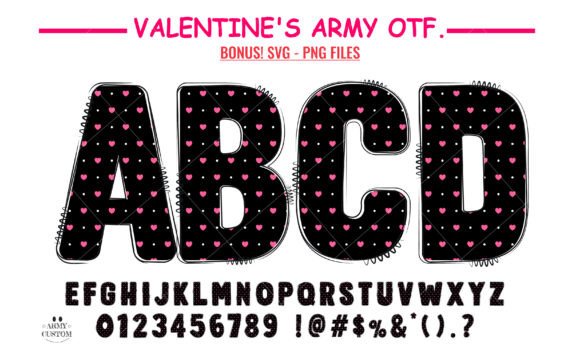
Love Valentine s Polka Dot Heart
Practical Use Cases for Love Valentine s Polka Dot Heart
- Logo Design: Can work well for brands targeting a younger, more artistic audience.
- Brand Identity: Adds a memorable and distinctive element to visual storytelling.
- Packaging Design: Makes products feel special and curated.
- Product Labels: Ideal for small items that need a touch of elegance.
- Posters and Flyers: Helps capture attention quickly and effectively.
- Invitations: Perfect for weddings, events, or themed gatherings.
- Merchandise: Works well on apparel, stationery, and other printables.
- Website Headers: Adds a creative edge to digital presence.
- Social Media Graphics: Enhances engagement with its vibrant style.
- Digital Ads: Stands out in a crowded space with its unique look.
- Canva Templates: A great addition for designers looking to create visually rich content.
- Cricut Projects: Offers versatility for crafters and DIY enthusiasts.